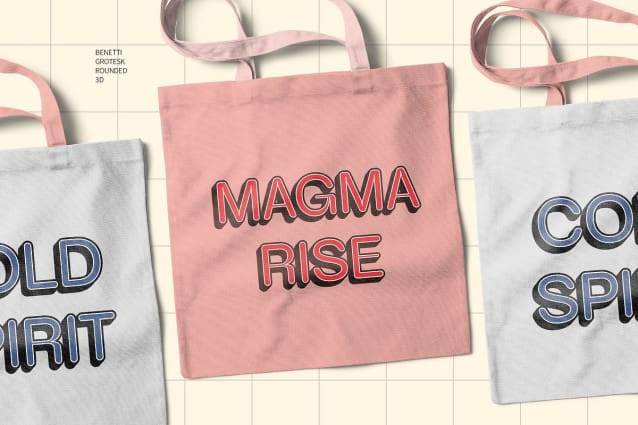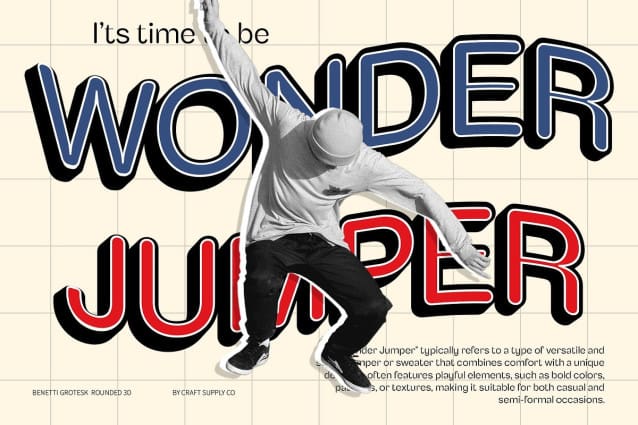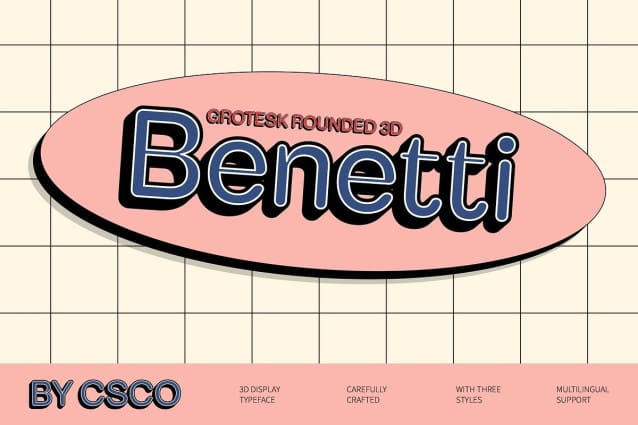
Benetti Grotesk Rounded 3D Font
Benetti Grotesk Rounded 3D Font is a modern sans-serif font that combines the strong, structured elements of grotesque typography with smooth, rounded shapes. This font offers a bold yet approachable appearance, making it versatile for a range of design needs. The rounded edges soften the overall look, while the solid structure ensures a professional, impactful presence.
Striking 3D Effect for Dynamic Designs What sets Benetti Grotesk Rounded 3D apart is its dimensional 3D effect, which adds depth and visual intrigue to any design. The 3D aspect enhances the boldness of the font, making it ideal for eye-catching branding, headlines, and digital interfaces. This unique design elevates simple text into a powerful visual element, perfect for modern and dynamic projects.
Perfect for Digital and Print This font excels in both digital and print environments, offering clarity and readability while providing a unique, textured look. The 3D effect works particularly well in digital design, creating a sense of movement and modernity that resonates with contemporary aesthetics. This grotesque rounded 3D font is ideal for projects that want to stand out while maintaining a sleek, professional appearance.